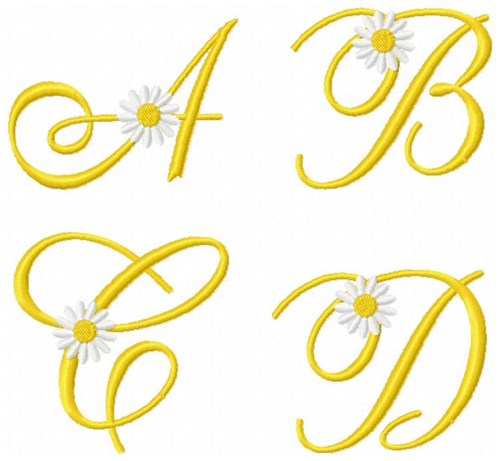
Satin Stripes is happy to present Floral Embrilliance Embroidery Font - Elegant Decorative Script Letters - BX font machine embroidery font which has Outline decorative script machine embroidery font, adorned with small daisies, ideal for delicate projects on linens or home decor. Available in BX font and Embrilliance formats. included. If you would like to view more embroidery fonts and alphabets please search our embroidery fonts page.
Floral Embrilliance Embroidery Font - Elegant Decorative Script Letters - BX font